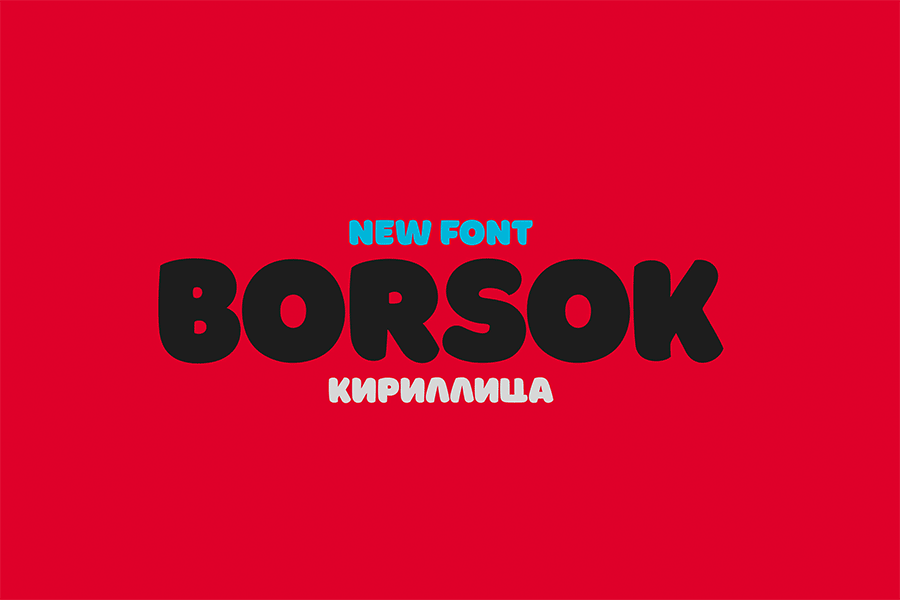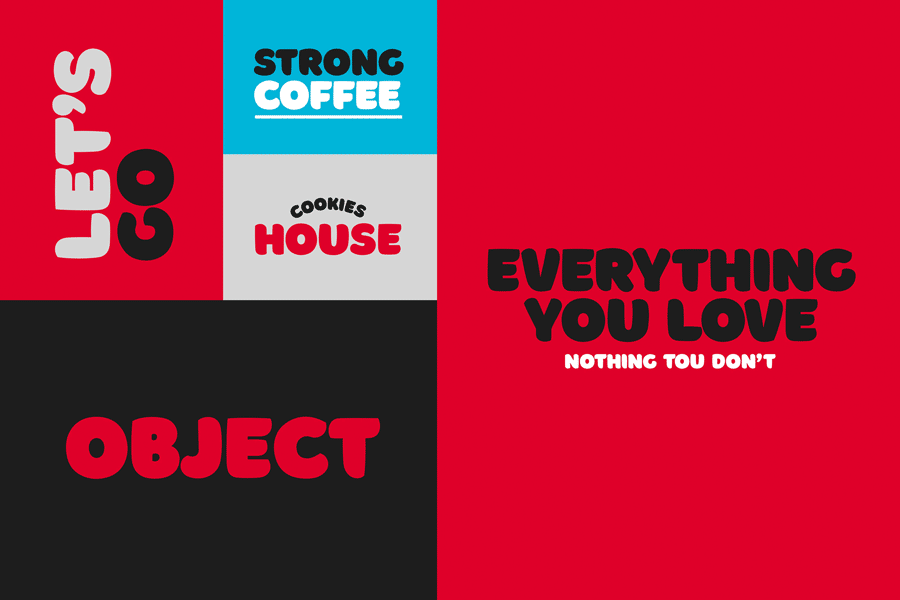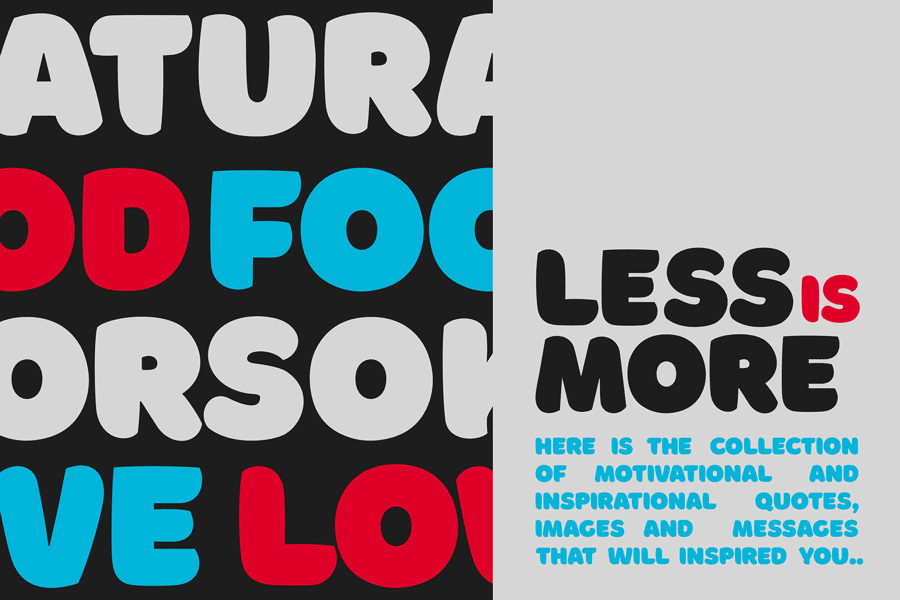
Borsok is a thick uppercase font suitable for large displays. It’s a sans serif type font with lines where curved meets the straight. This font can be used for posters, logotype, branding, marketing materials and more.
Borsok comes with Latin and also Cyrillic characters, and you can download and use it for both personal and commercial projects.